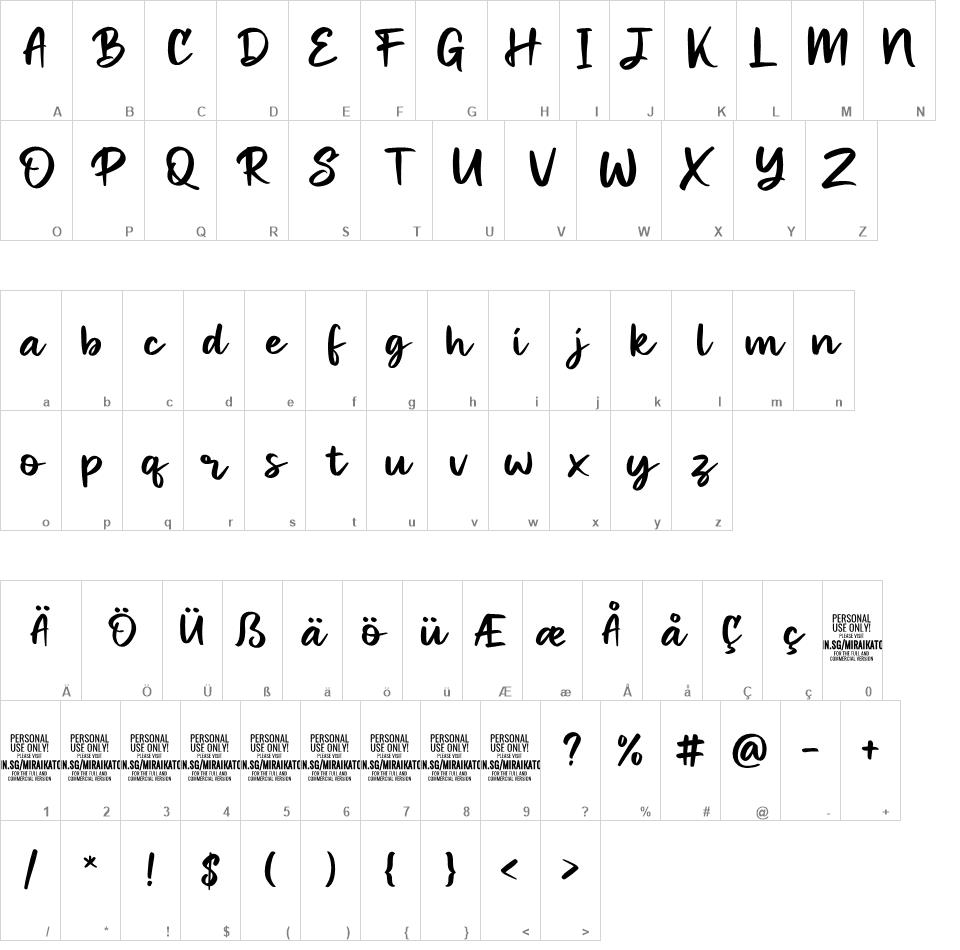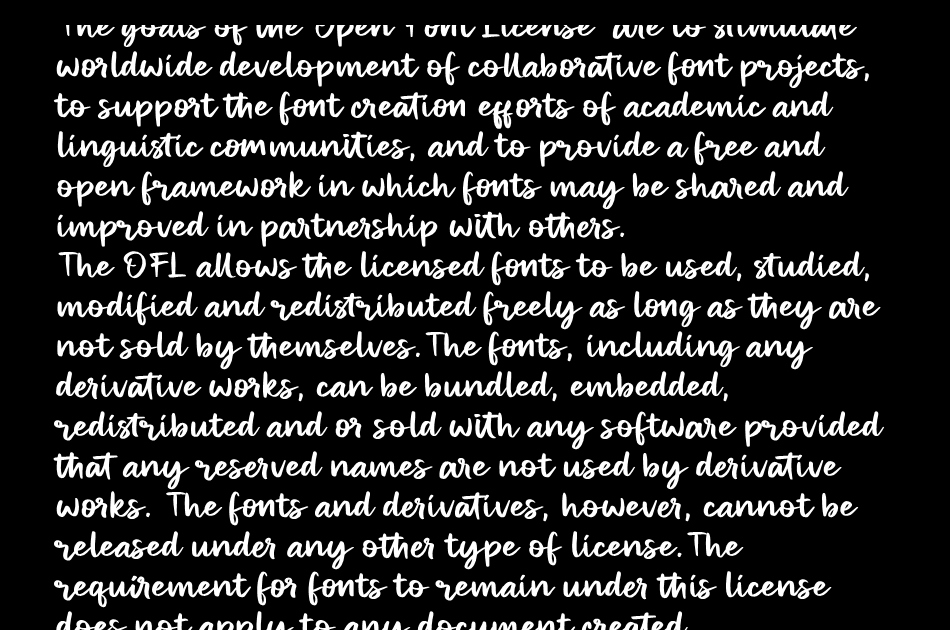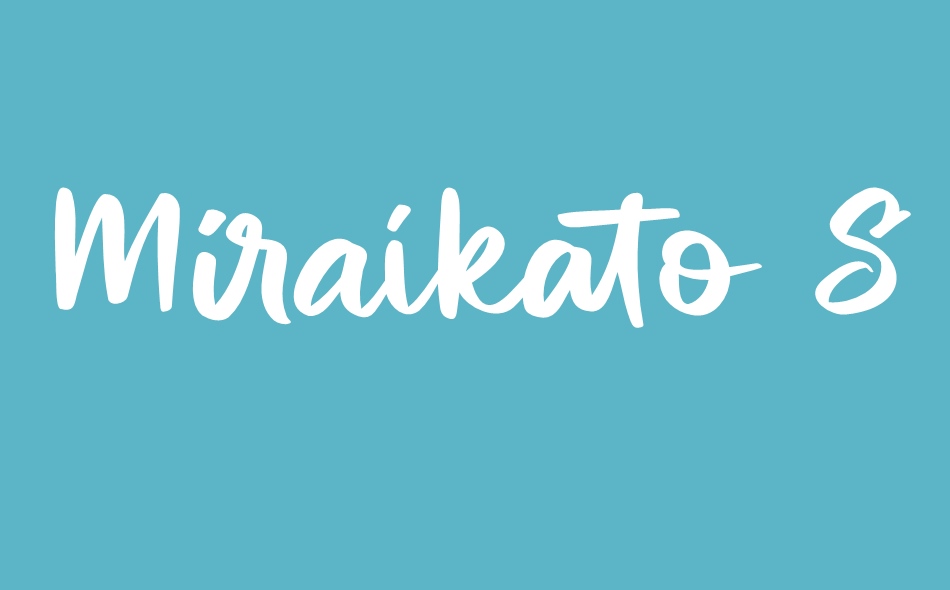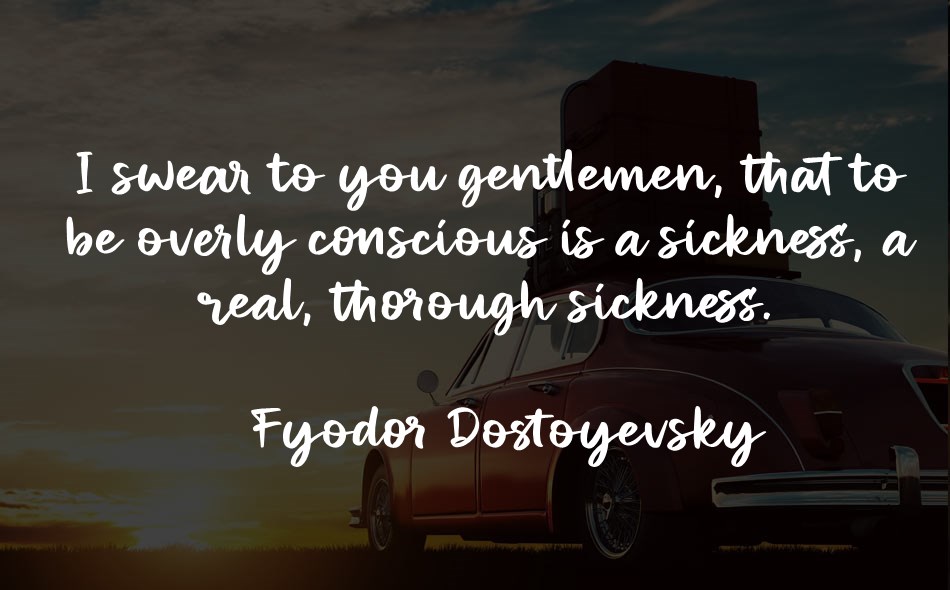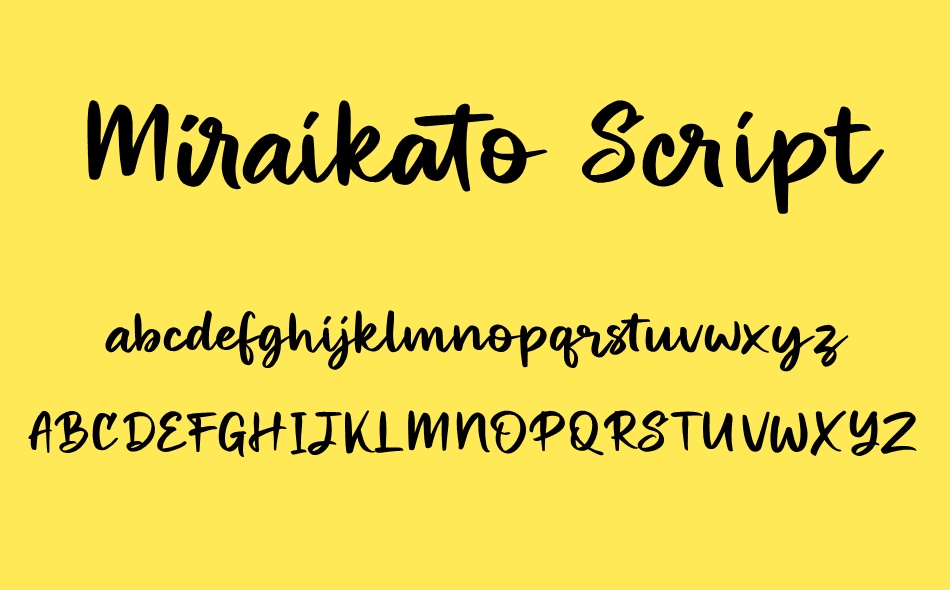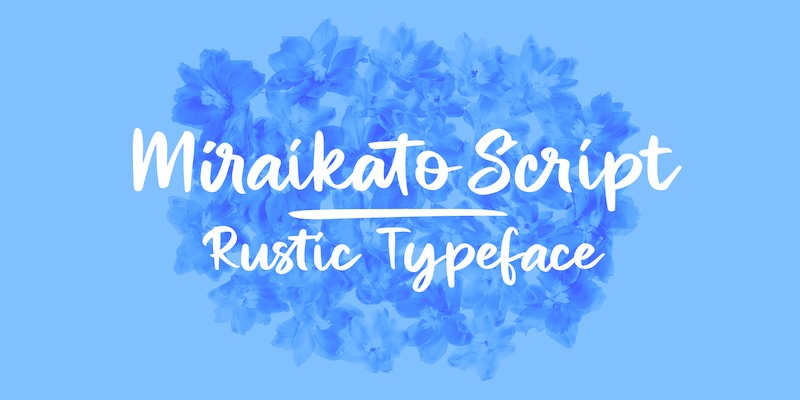
Miraikato Script font
Miraikato Script is a rustic handwriting typeface.
As a cute brush writing, its naive and happy movements brings out the optimism and genuineness in any project. It has the flow and elegance of a formal font, while maintaining the youthful enjoyment of a real handwritten text.
The Miraikato Script family is provided in six styles: The weights Thin, Regular and Bold, plus each weight as Italic.
The font is built with advanced OpenType functionality and has a guaranteed top-notch quality, containing stylistic and contextual alternates, ligatures and more features; all to give you full control and customizability. It has extensive lingual support, covering all Latin-based languages, from North Europe to South Africa, from America to South-East Asia. It contains all characters and symbols you'll ever need, including all punctuation and numbers.